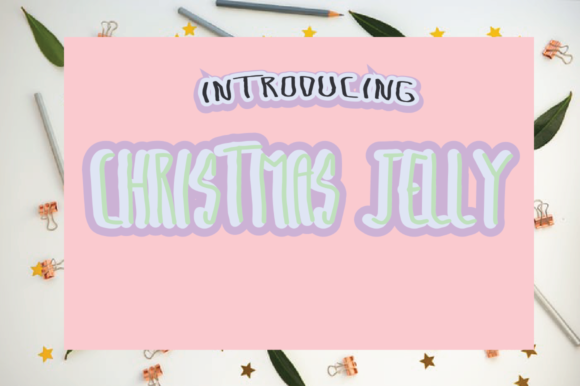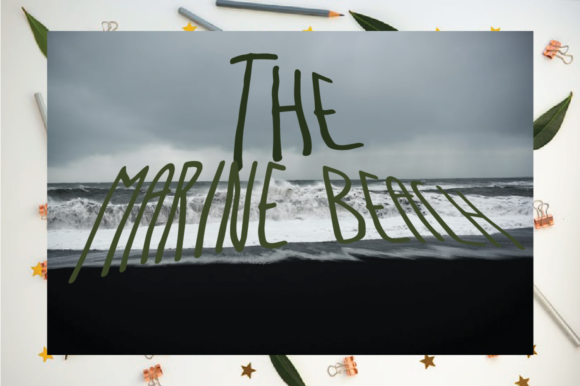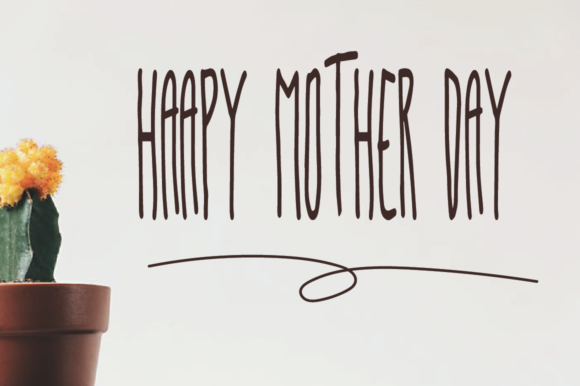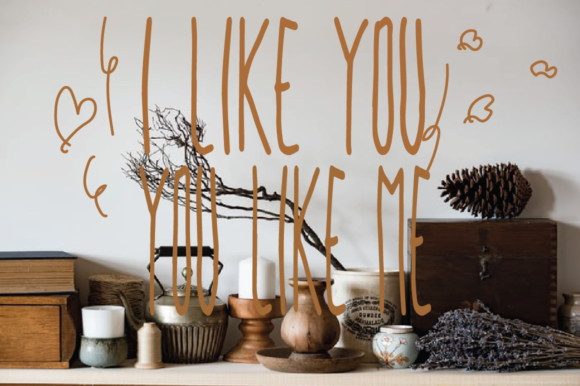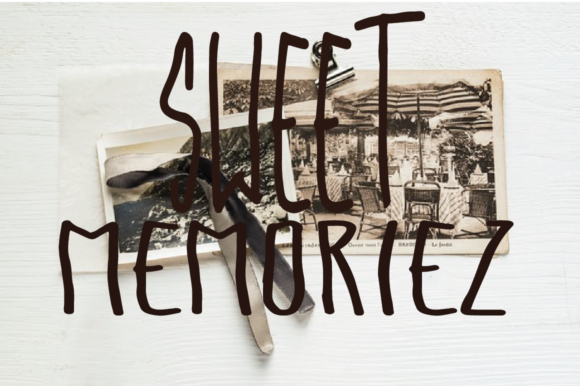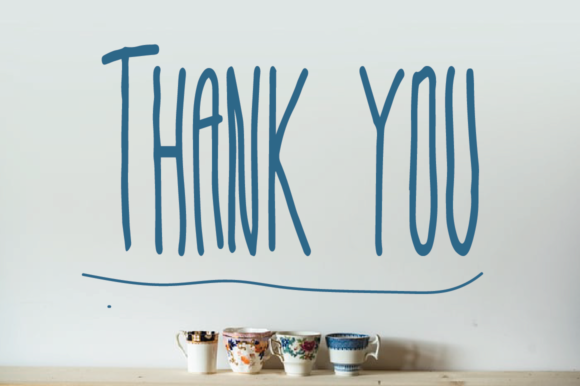
Introducing Christmas Jelly Font: The Perfect Addition to Your Holiday Designs
Are you looking for a font that will add a touch of festive flair to your holiday designs? Look no further than Christmas Jelly Font! This simple and minimalist sans serif font is perfect for designers and crafters who want to create eye-catching and inviting typography for their creative projects.
What is Christmas Jelly Font?
Christmas Jelly Font is a modern sans serif font that features clean lines, simple shapes, and a playful vibe. Its minimalist design makes it versatile and easy to use, allowing you to pair it with a variety of design elements to create a unique and festive look.
Key Features of Christmas Jelly Font
- Simple and Minimalist Design: Christmas Jelly Font features a clean and simple design that makes it perfect for a variety of design projects.
- Sans Serif Style: The font’s sans serif style gives it a modern and fresh look that’s perfect for holiday designs.
- Playful Vibe: Despite its minimalist design, Christmas Jelly Font has a playful vibe that makes it perfect for festive and holiday designs.
- Easy to Read: The font is easy to read, even at small sizes, making it perfect for use on a variety of design materials.
Uses for Christmas Jelly Font
Christmas Jelly Font is a versatile font that can be used for a variety of design projects, including:
- Product Packaging: Use Christmas Jelly Font to add a festive touch to your product packaging and make it stand out on store shelves.
- Branding: Use the font to create a consistent brand identity across all your marketing materials.
- Banners: Create eye-catching banners for your website, social media, or in-store promotions using Christmas Jelly Font.
- Marketing Materials: Use the font to create festive and engaging marketing materials, such as flyers, brochures, and posters.
- Social Media Posts: Add a touch of holiday cheer to your social media posts with Christmas Jelly Font.
Why Choose Christmas Jelly Font?
There are many fonts to choose from, but Christmas Jelly Font stands out for its unique combination of simplicity, playfulness, and versatility. Here are just a few reasons why you should choose Christmas Jelly Font for your holiday designs:
- Unique and Festive: Christmas Jelly Font is a unique and festive font that will add a touch of holiday cheer to your designs.
- Easy to Use: The font is easy to use and pairs well with a variety of design elements, making it perfect for designers of all skill levels.
- High-Quality Design: Christmas Jelly Font is a high-quality font that is designed to look great on a variety of devices and in a range of sizes.
Tips for Using Christmas Jelly Font
Here are a few tips for using Christmas Jelly Font in your holiday designs:
- Pair with Bold Colors: Pair Christmas Jelly Font with bold, festive colors to create a fun and eye-catching design.
- Use on White or Light Backgrounds: Use Christmas Jelly Font on white or light backgrounds to make it stand out and create a clean and simple design.
- Experiment with Sizes: Experiment with different sizes and font weights to create visual interest and add depth to your design.
Christmas Jelly Font is a simple and minimalist sans serif font that is perfect for designers and crafters who want to add a touch of festive flair to their holiday designs. With its clean lines, simple shapes, and playful vibe, it’s the perfect addition to your creative projects. Whether you’re creating product packaging, branding, banners, marketing materials, or social media posts, Christmas Jelly Font is a versatile and easy-to-use font that will help you create eye-catching and inviting typography.